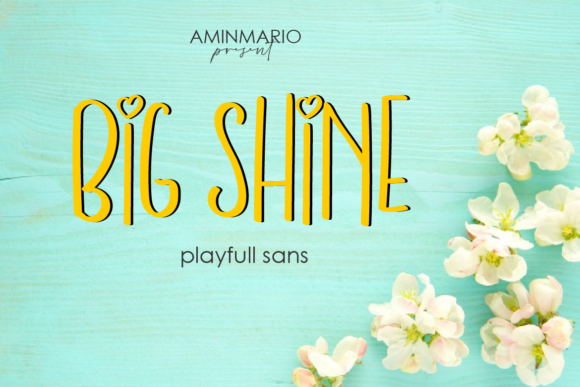
Unlock the Power of Simple yet Effective Design
You’ve spent hours brainstorming ideas, pouring your heart into a new project, and finally, you’re about to present it to the world. But, something’s missing – a spark that sets it apart from the rest. That’s where the right font comes in. Imagine adding a touch of sophistication and elegance to your design, effortlessly elevating it to the next level. This is exactly what the Big Shine Font is designed to do.
Big Shine is a minimal and neat sans serif font, perfect for a wide range of projects. Its versatility makes it a valuable asset for designers looking to create a lasting impression. By incorporating the Big Shine Font into your design, you’ll notice a significant difference in how it makes your ideas shine. Whether you’re working on a logo, brochure, or website, this font is sure to make your project stand out.
Big Shine Font Key Features
- Unique Characteristics: Features a distinctive shine effect, adding a touch of elegance and sophistication to any design.
- Kerning and Ligatures: Includes advanced kerning and ligature features for precise control over letter spacing and connection.
Big Shine Font Review
When I first saw the Big Shine Font, I was immediately drawn to its unique sparkle ✨. The font has a fun, playful vibe that’s perfect for creative projects or branding that wants to stand out. The font’s bold lines and rounded edges give it a friendly feel that’s hard to resist.
- ✨ Unique sparkle effect that adds a touch of whimsy to any design
- Perfect for creative projects or branding that wants to stand out
- Easy to read, even in bold weights
- ⚠️ Limited language support, may not be suitable for international projects
- ⚠️ May not be the best choice for formal or professional designs
- ⚠️ Can be overwhelming if used too much, so use sparingly
Overall, I think the Big Shine Font is a great addition to any designer’s toolkit. While it may not be the best choice for every project, it’s perfect for adding a touch of fun and personality to your designs. Just be sure to use it thoughtfully and in moderation.
Big Shine Font is ideal for:
- Wedding and event signage
- Formal event invitations and announcements
- Choose a bold, contrasting background color to make the text stand out.
- Use Big Shine Font for the quote itself, applying a gradient effect to enhance its shine.
- Combine with minimalist graphics, like simple shapes or icons, to add visual interest.
- Balance the shine effect with matte or muted colors to avoid overwhelming the senses.
- Experiment with different background textures to add depth and visual interest.
- Use Big Shine Font for the main message or headline, applying a subtle gradient effect to enhance its shine.
- Combine with bold, colorful graphics, like icons or patterns, to create a lively atmosphere.
- Experiment with different font sizes and styles to create visual hierarchy and emphasis.
- Use Big Shine Font in conjunction with bold, sans-serif fonts to create a striking contrast.
- Balance the shine effect
Project 1: Illuminated Quote Display
This project features a striking display of motivational quotes, highlighted with Big Shine Font. The font’s unique, eye-catching style makes it perfect for grabbing attention and conveying a sense of empowerment.
Project 2: Shimmering Social Media Graphics
This project showcases Big Shine Font in a fun, dynamic social media graphic. The font’s sparkle effect makes it perfect for creating eye-catching social media posts, ads, or promotions.